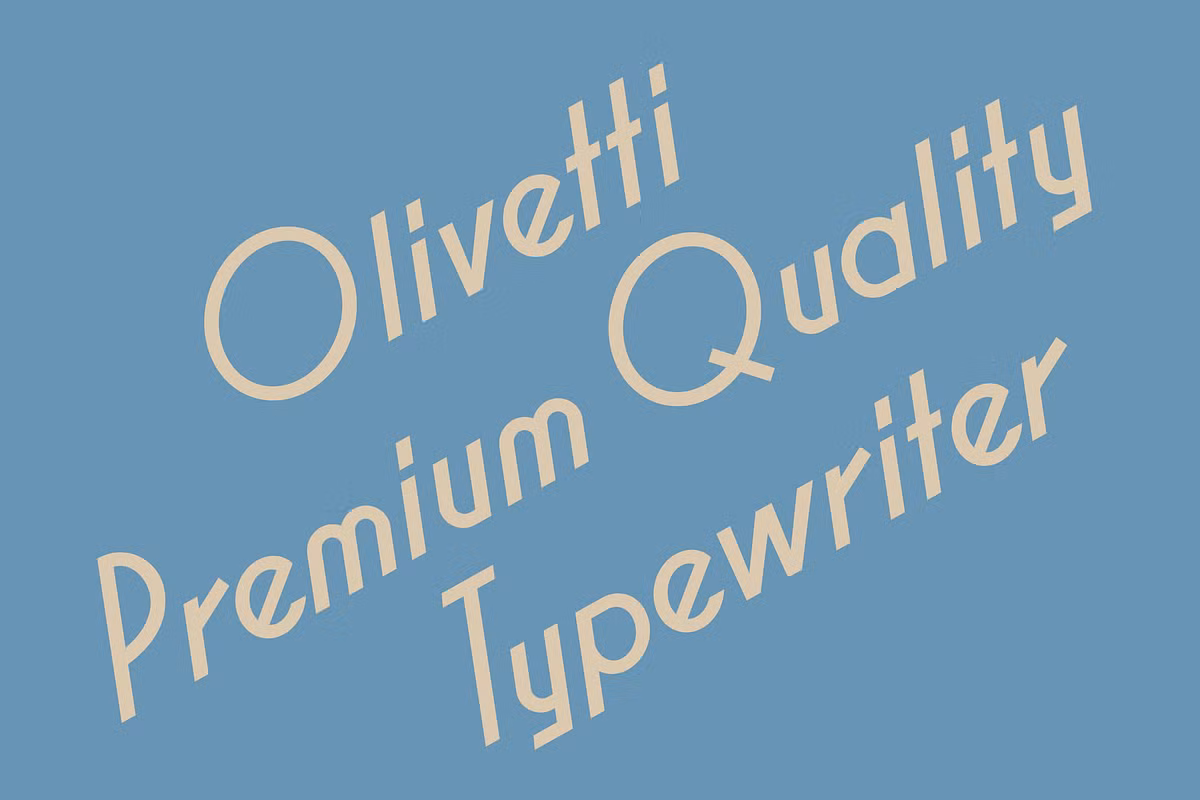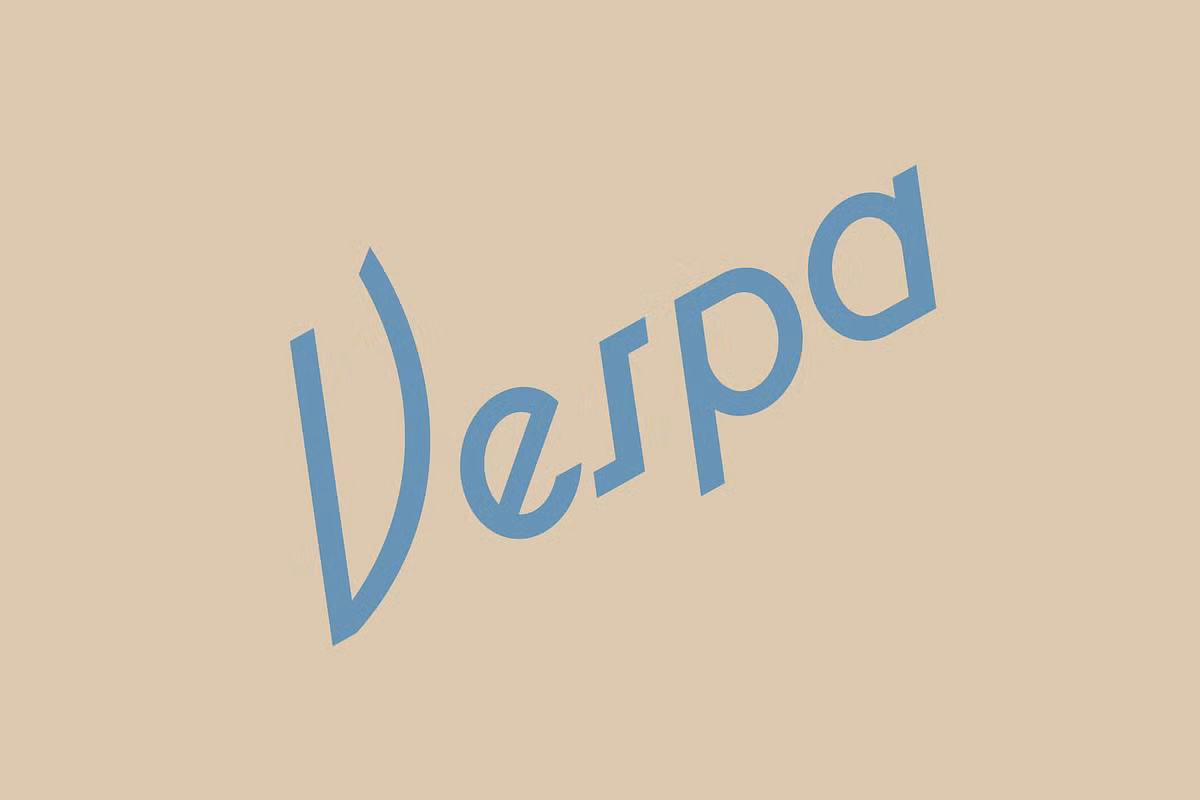
Albergo: Geometric Script Inspired by Italian Motor Industry Lettering
Albergo is a captivating geometric script that draws its inspiration from the elegant lettering styles found in the Italian motor industry. This typeface encapsulates a unique blend of modernity and classic Italian design, making it a dynamic choice for various creative projects.
The design of Albergo is characterized by its geometric shapes and sharp lines, reflecting the precision and artistry synonymous with Italian automotive design. This typeface embodies a clean, contemporary aesthetic, making it versatile for both digital and print applications.
The way Albergo’s letters are designed is really something special – they’re easy to read, but also super stylish. You’ve got these beautiful curves mixed with straight lines, and it all comes together to create this amazing visual effect that grabs your attention without being too much. That’s why it’s perfect for things like branding, signs, and marketing stuff, where you need to be clear and look good at the same time. It’s all about finding that balance, and Albergo definitely hits the spot. Whether you’re trying to make a statement or just get your point across, this design has got you covered.
Visual Characteristics
The style of Albergo is really modern, but it also reminds us of the old days of the Italian car industry. This mix of old and new is pretty cool. The lines that make up the letters are all the same width, which makes it look super contemporary. Plus, the spaces inside the letters, called counters, are nice and open, and each letter has its own unique shape. This means you can read it easily, even when it’s really small or really big.
Character Sets and Variants
Albergo is designed with a comprehensive character set, supporting a wide range of languages and symbols. This inclusivity makes it an excellent choice for international branding efforts and diverse marketing campaigns. The typeface includes uppercase and lowercase letters, numerals, punctuation, and various special characters.
When it comes to different versions, Albergo gives you a lot of choices – like various weights and styles – so designers can pick the one that works best for what they’re doing. If you need something big and bold for headings, or something lighter for the main text, Albergo has got you covered – it’s really versatile and makes it easy to find the perfect fit.
Use Cases
Albergo has a unique look that makes it perfect for many different situations. Let’s take a look at some examples of where this font really stands out:
- Branding: Albergo is a great choice for creating logos and brand identities, especially for high-end companies like car manufacturers or luxury goods. The special way it looks can help make a lasting impression on people. This makes it perfect for brands that want to stand out and be remembered.
- Advertising: Use Albergo in advertisements to attract attention and convey a sense of modernity and elegance. Its geometric script can enhance the visual appeal of promotional materials.
- Web Design: The way Albergo looks makes it a great pick for websites, especially for headers and things that need to stand out. It helps make everything look nice and consistent, which is something visitors will really like.
- Packaging: Incorporating Albergo into product packaging can elevate the overall aesthetic and align the product with sophisticated branding.
To maximize the impact of Albergo in your designs, consider pairing it with complementary typefaces. Here are some pairing suggestions:
- Sans Serif Fonts: Pair Albergo with clean sans serif fonts like Helvetica or Futura for a modern look. The contrast between the geometric script and the simplicity of sans serifs can create a pleasing visual balance.
- Serif Fonts: For a classic look, you could pair Albergo with a traditional serif font, such as Times New Roman or Baskerville. This mix of fonts can give your brand a timeless, sophisticated feel that’s just right for high-end companies.
- Display Fonts: If you want to make a bold statement, combine Albergo with another display font that has a contrasting style. This can create a dynamic and eye-catching composition that draws the viewer’s attention.
So, what makes Albergo so special? It’s a geometric script that brings together the best of modern design and the classic style of Italian motor industry lettering. This unique combination makes it really versatile, so you can use it for all sorts of projects, from branding and ads to digital content. And the best part? It’s got a really distinctive look that’s sure to make your work stand out.
Whether you’re going for sophisticated and contemporary or just want to add a bit of flair, Albergo is a great choice. It’s perfect for designers who want to create something that’s both stylish and attention-grabbing. With Albergo, you can give your projects a high-end feel that’s sure to impress. Plus, its modern design means it’s easy to use in all sorts of contexts, from traditional print media to digital platforms. Overall, Albergo is a great option for anyone looking to add a bit of Italian flair to their design work.